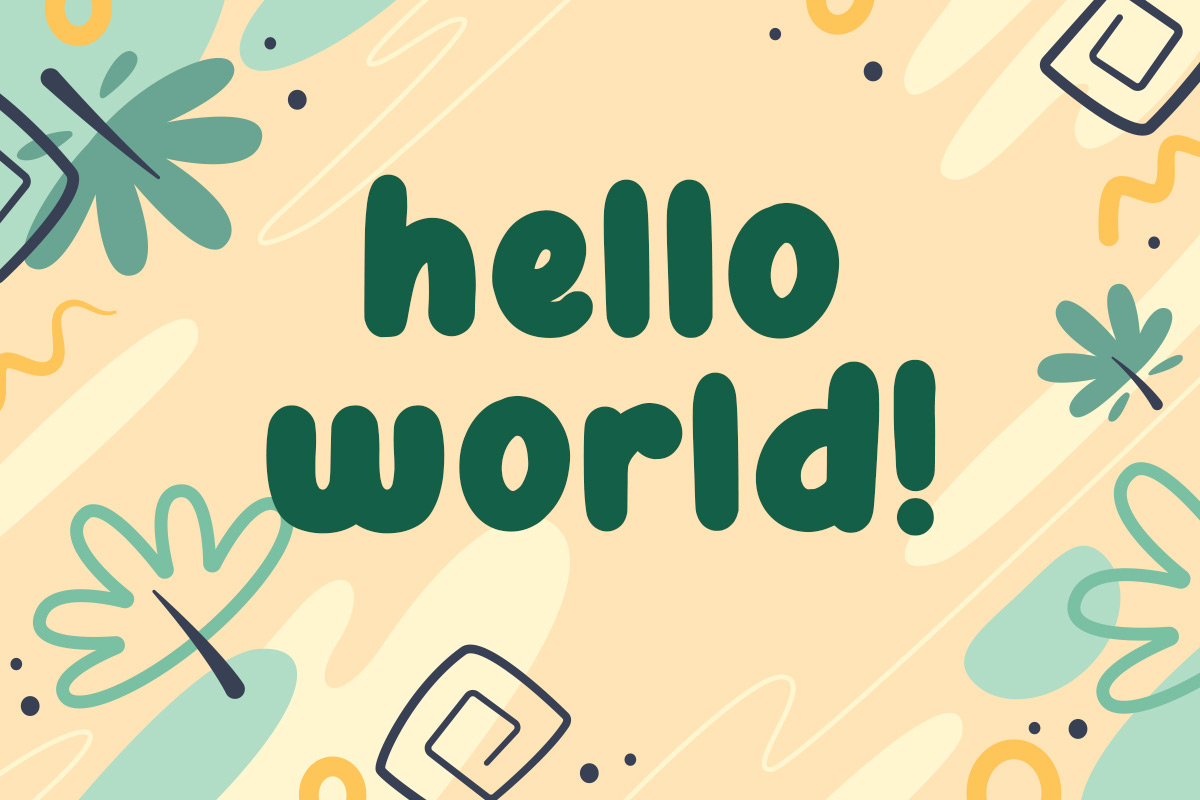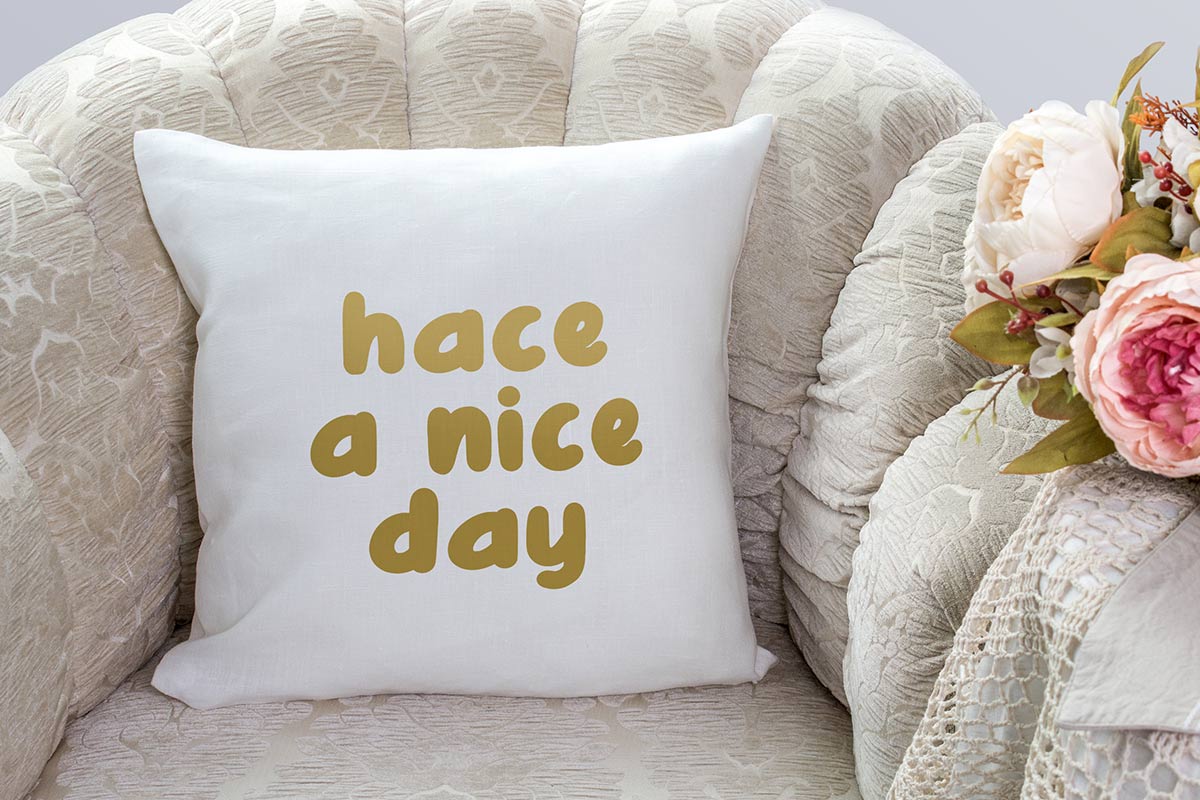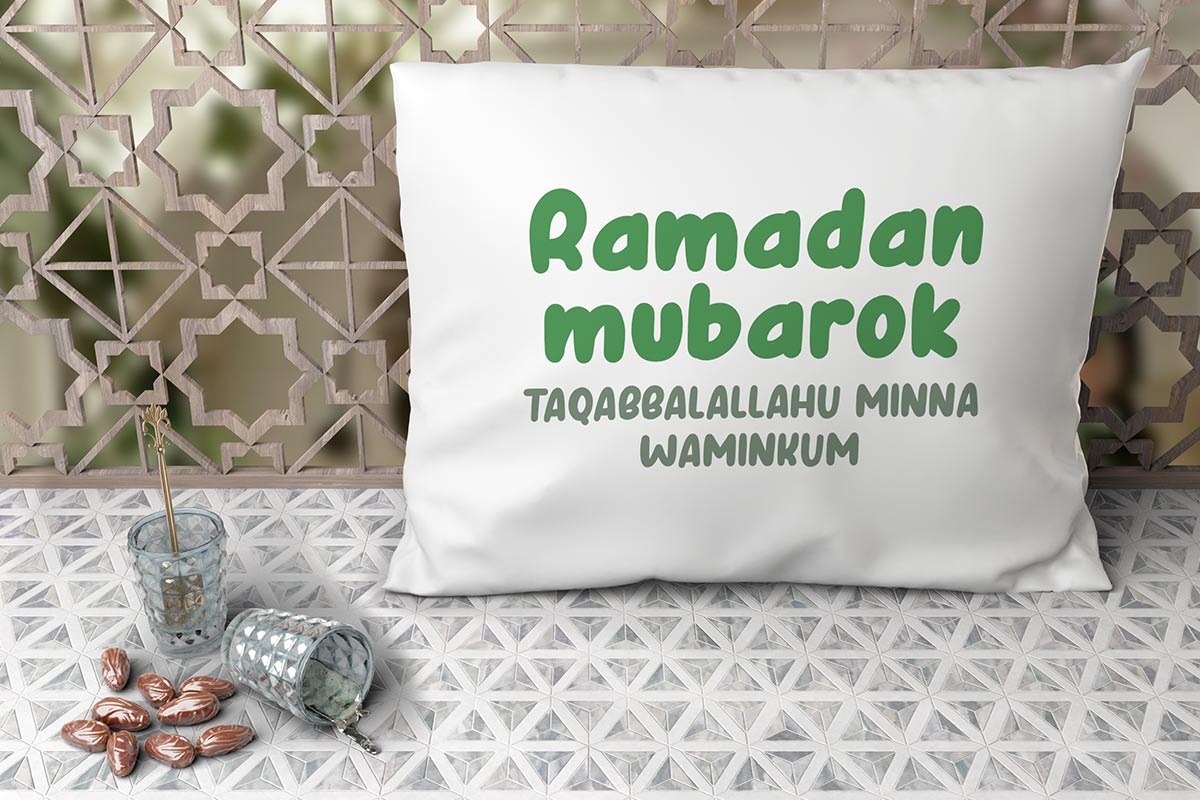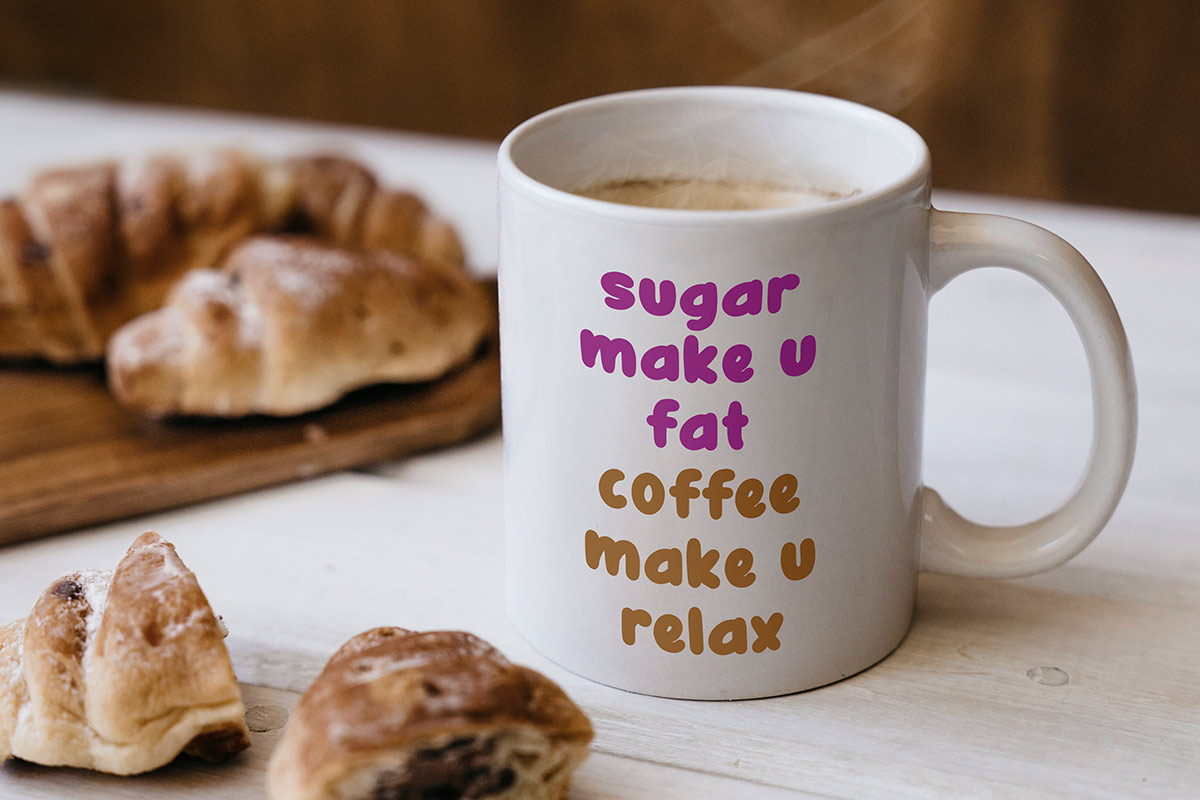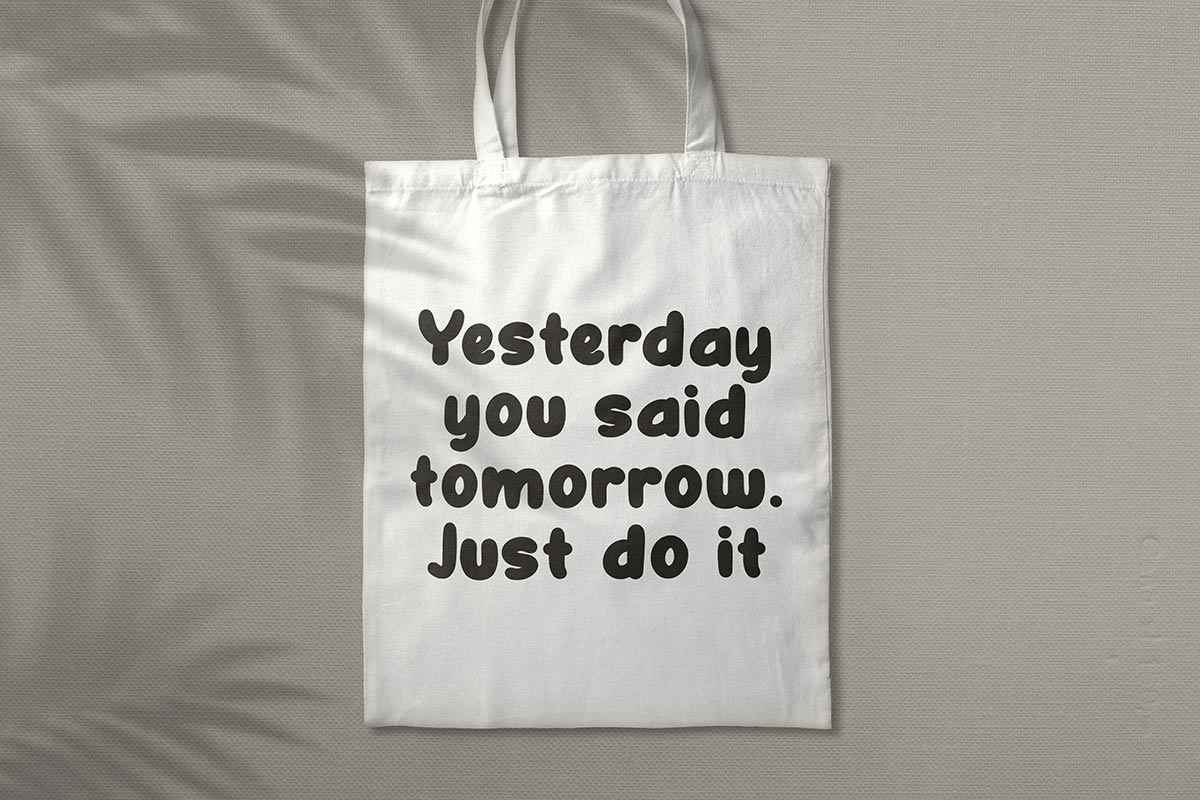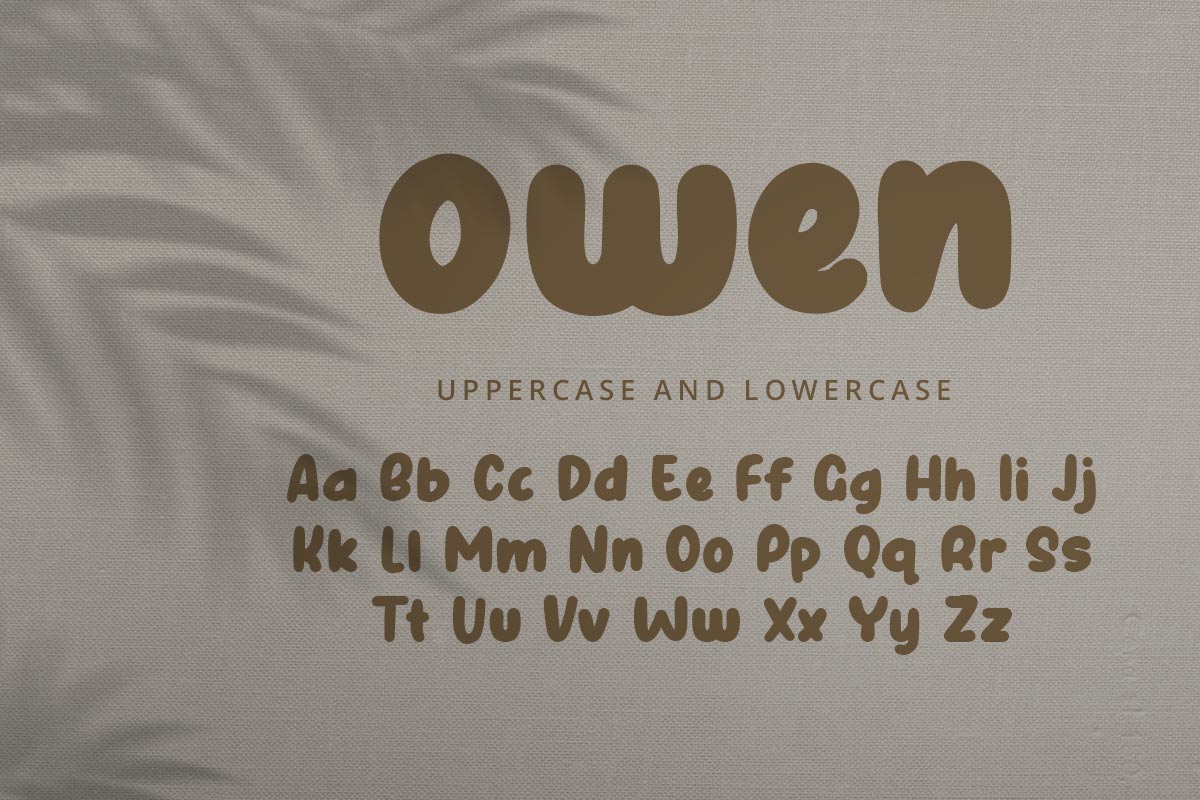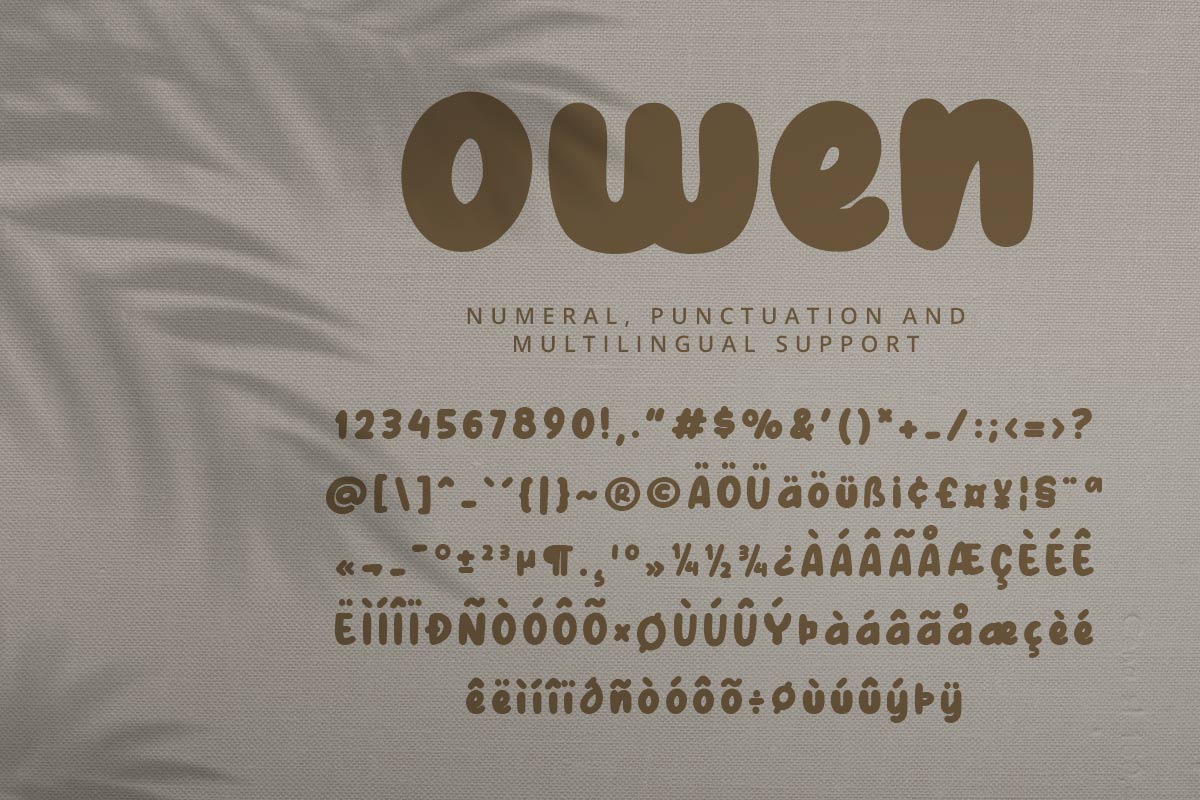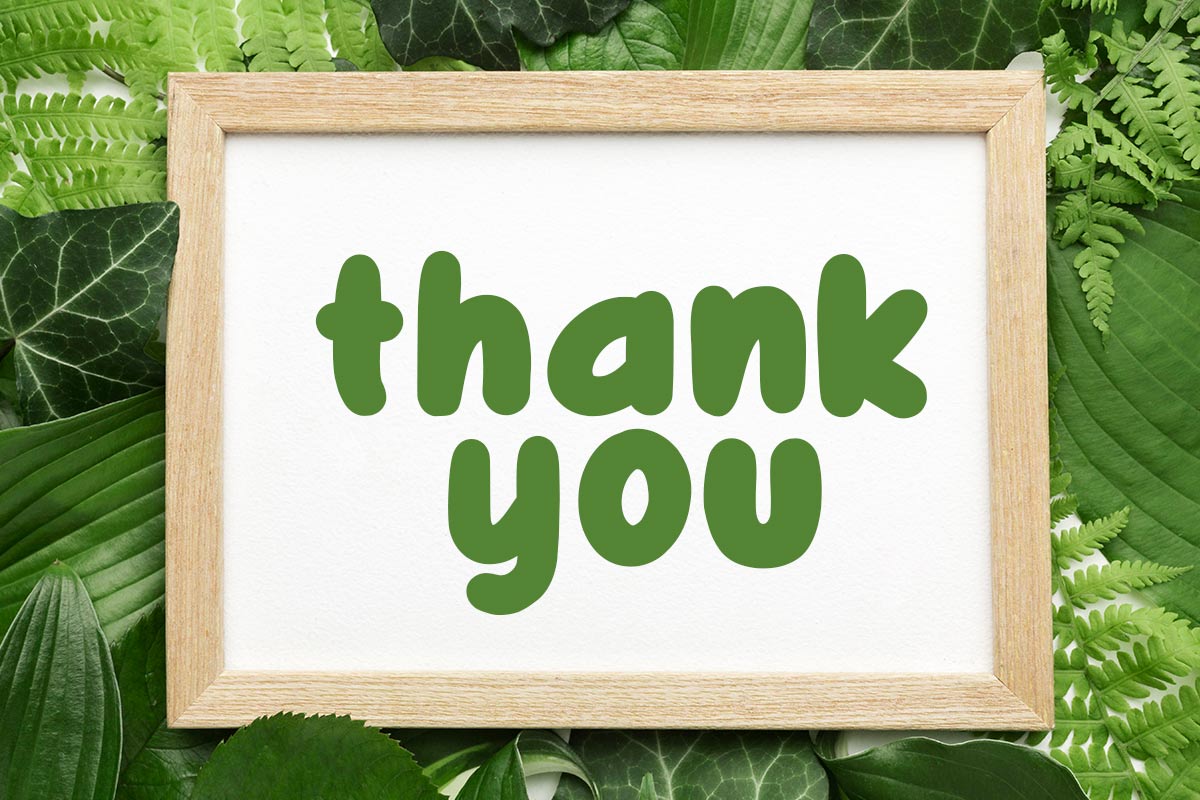
Owen Bubbly Handwritten Font Please welcome Owen Bubbly Handwritten Font, our fun and charming font designed for fun logos and fonts. Created with elliptical and bubble shapes, Owen Bubbly Handwritten Font is our light typeface that embodies a fun and colorful character. This font is made to work well digitally and in print. This type of letter has several unique characteristics that we can see carefully in its shape which is the same size and swells. These cute shapes are made to look modern, colorful, and playful. This font is the best font used as a brand name or merchandise related to children's fashion and equipment. Font size can be adjusted according to the items included. This font will be suitable for printing in medium font size. If it is too small or too large, the Owen Bubbly Handwritten Font will be more difficult to read. Apart from the uses mentioned above, you can use Owen Bubbly Handwritten Font for a cheerful and colorful event poster. This font can be used for tickets, banners, and stickers. The unique design of this font will also attract the attention of readers who see this poster scattered in various places, so they are interested in reading more about the poster's contents. Our Display fonts collection is compatible with Figma fonts, Canva fonts, Freepik Fonts, and Adobe Fonts. They also work as Windows Fonts and Apple Fonts. For your social media needs, you can use and install fonts in our collection of Decorative fonts to use as Instagram Fonts, Facebook Fonts, and Twitter Fonts.